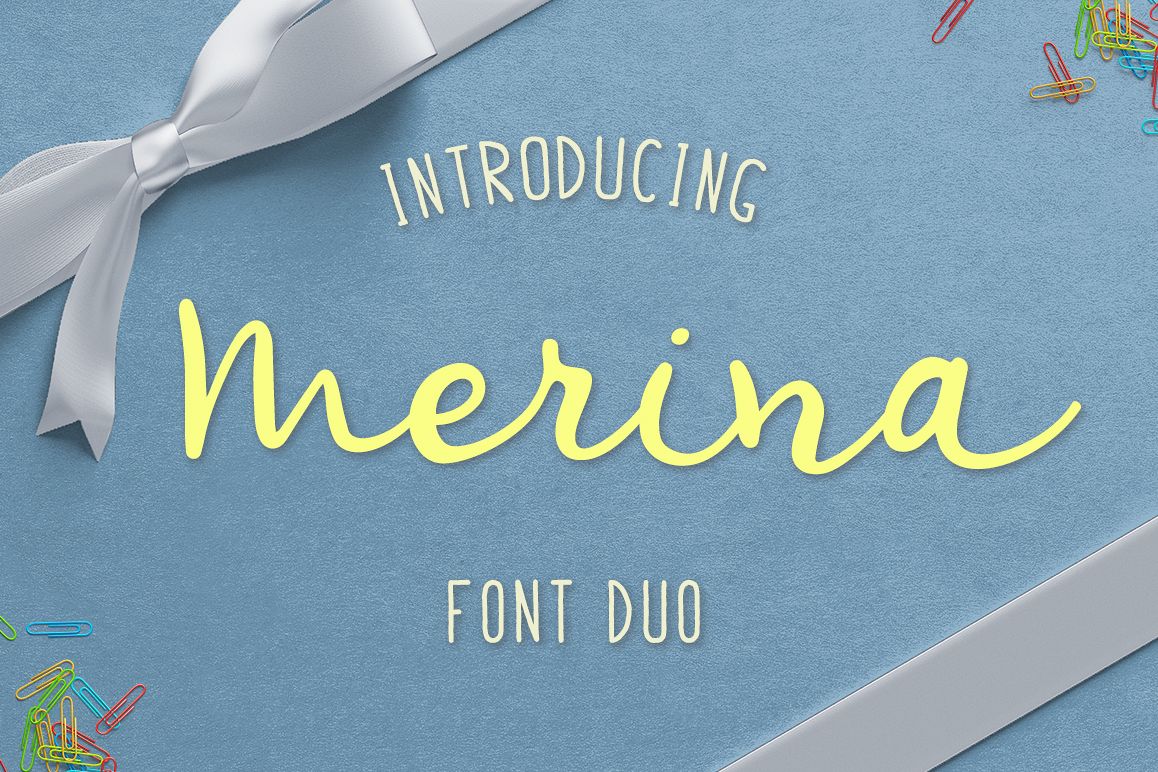
Merina Font Duo
It's modern script font family.This fonts are perfect for your blog or postcard for wedding. Also with their help, you can create a logo or beautiful frame for your home. Or just use for your small business, book covers, stationery, marketing, magazines.Zip Includes: